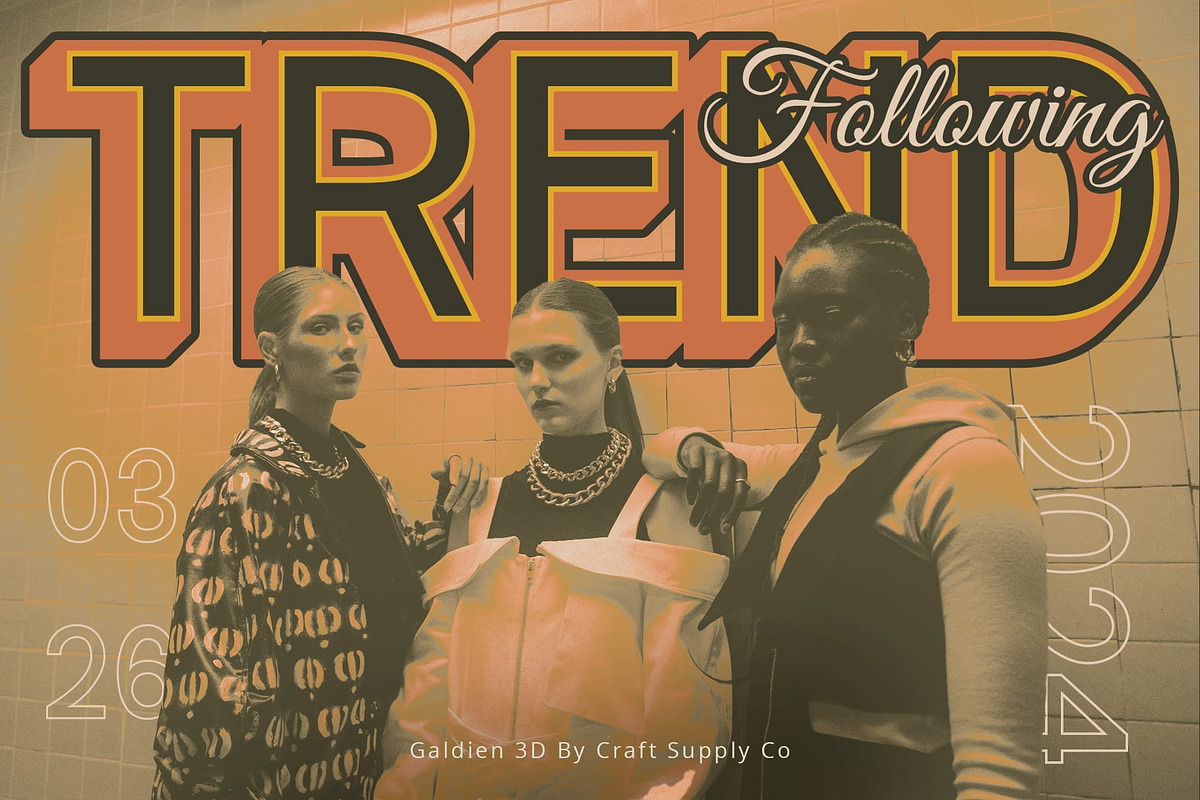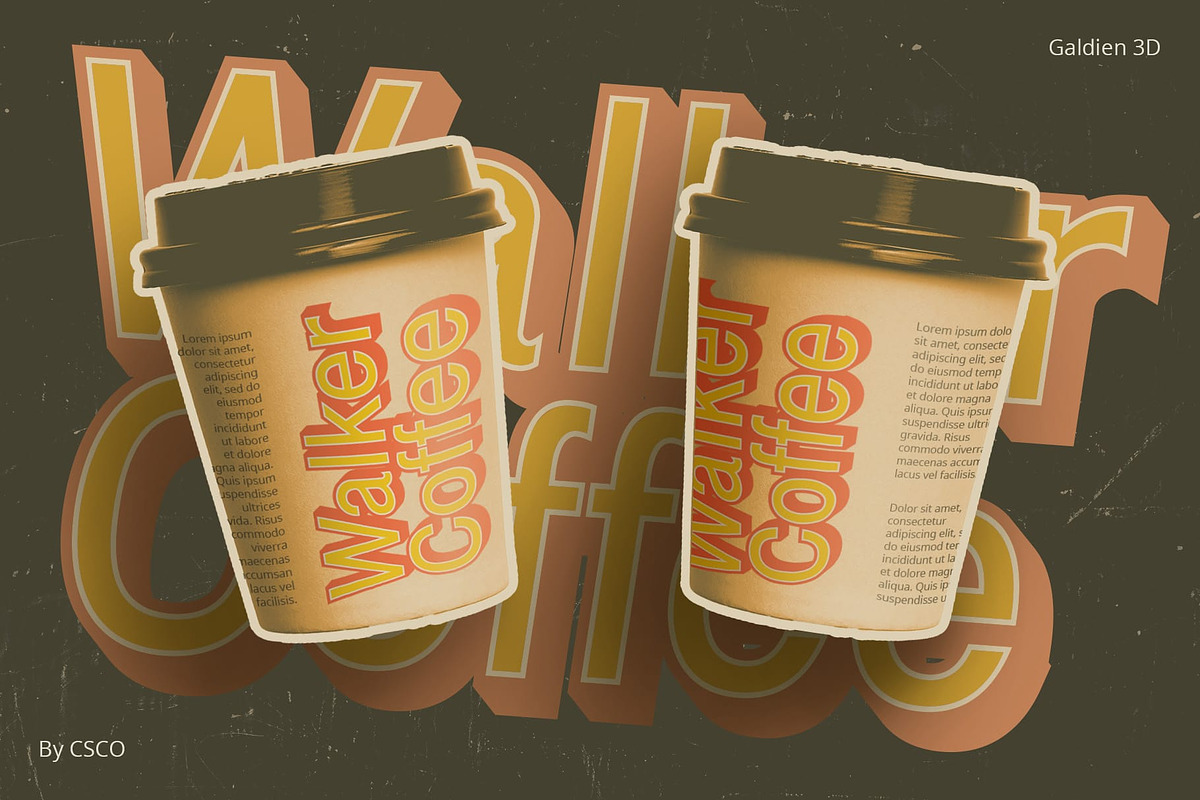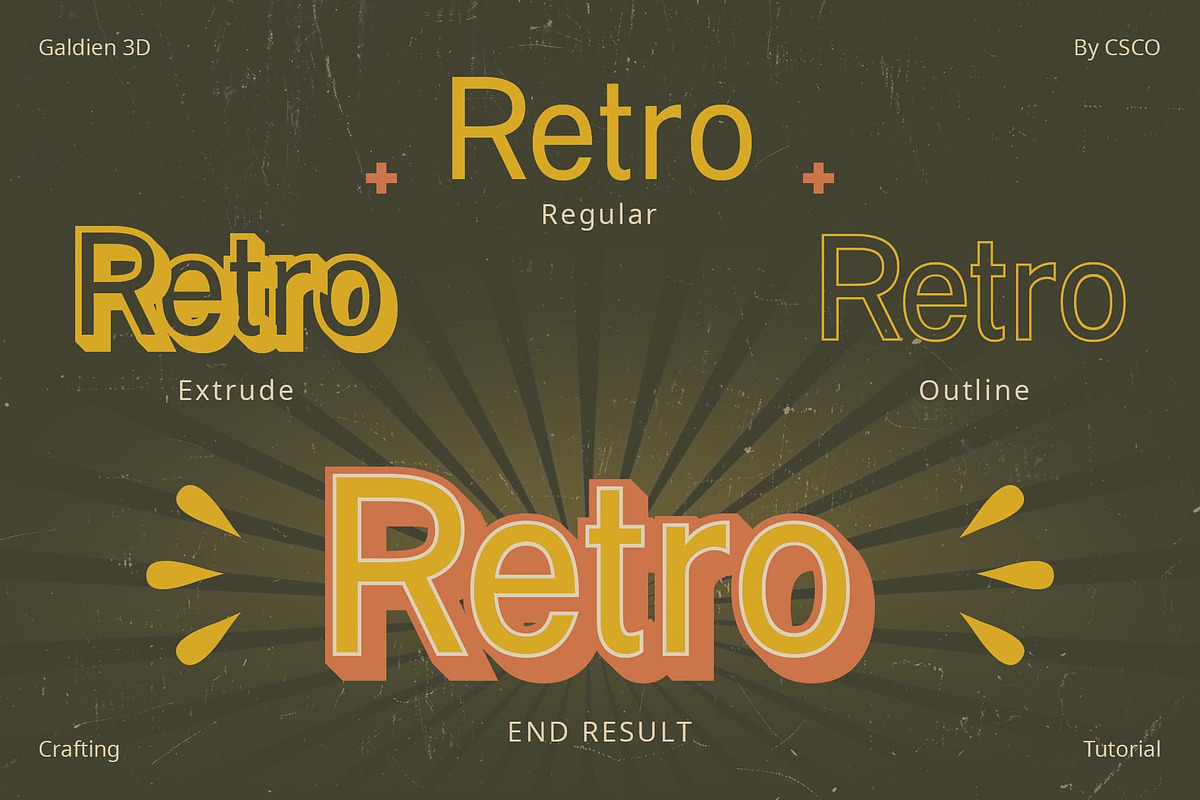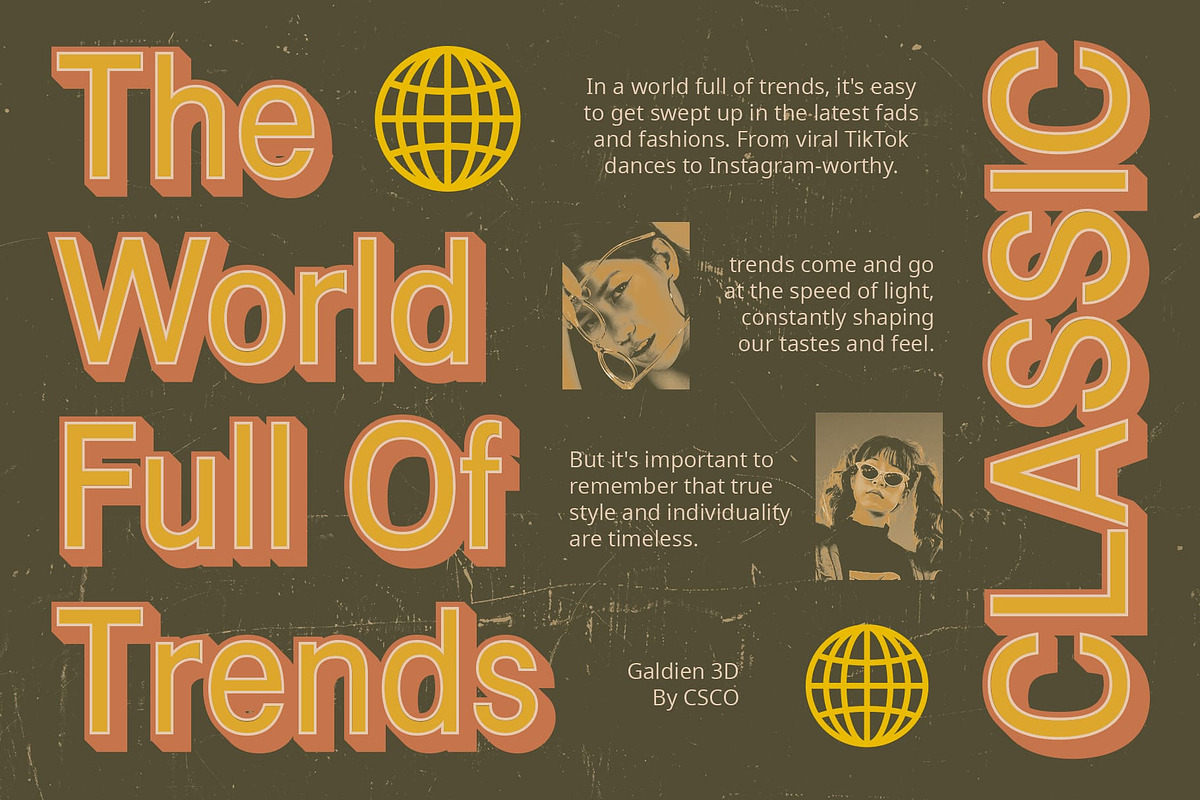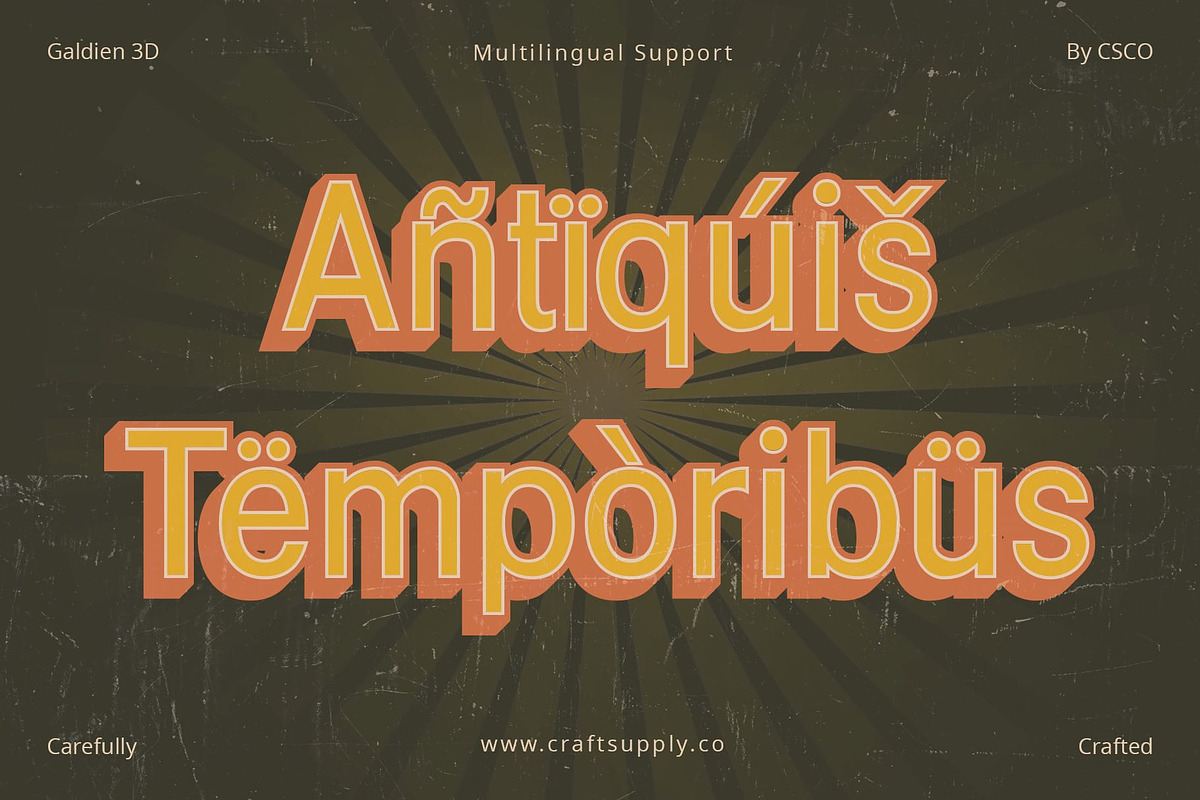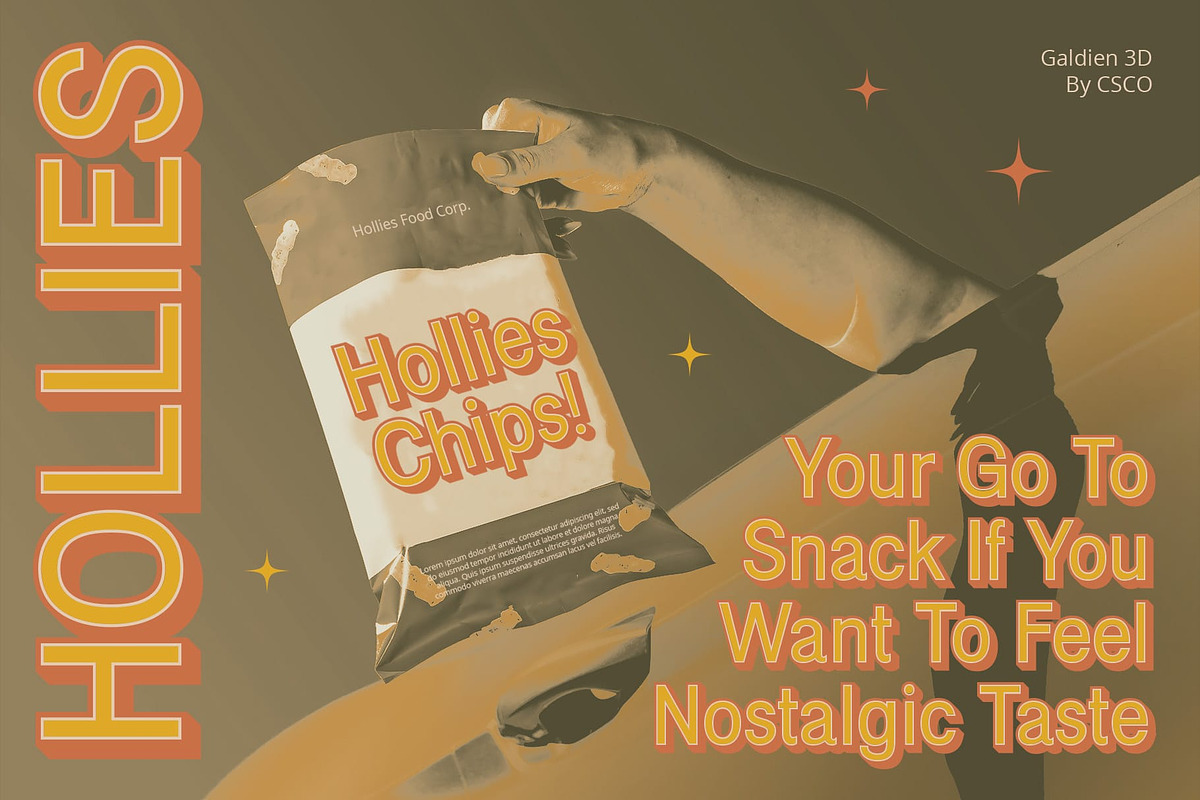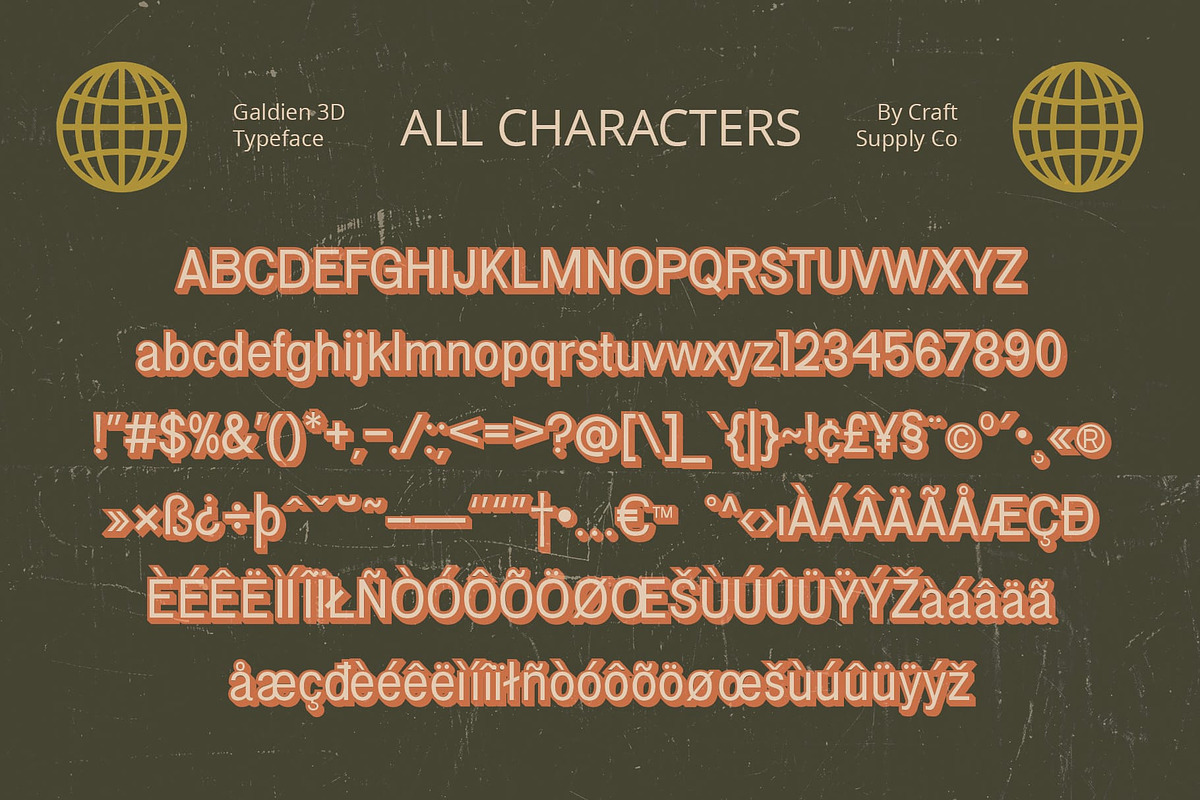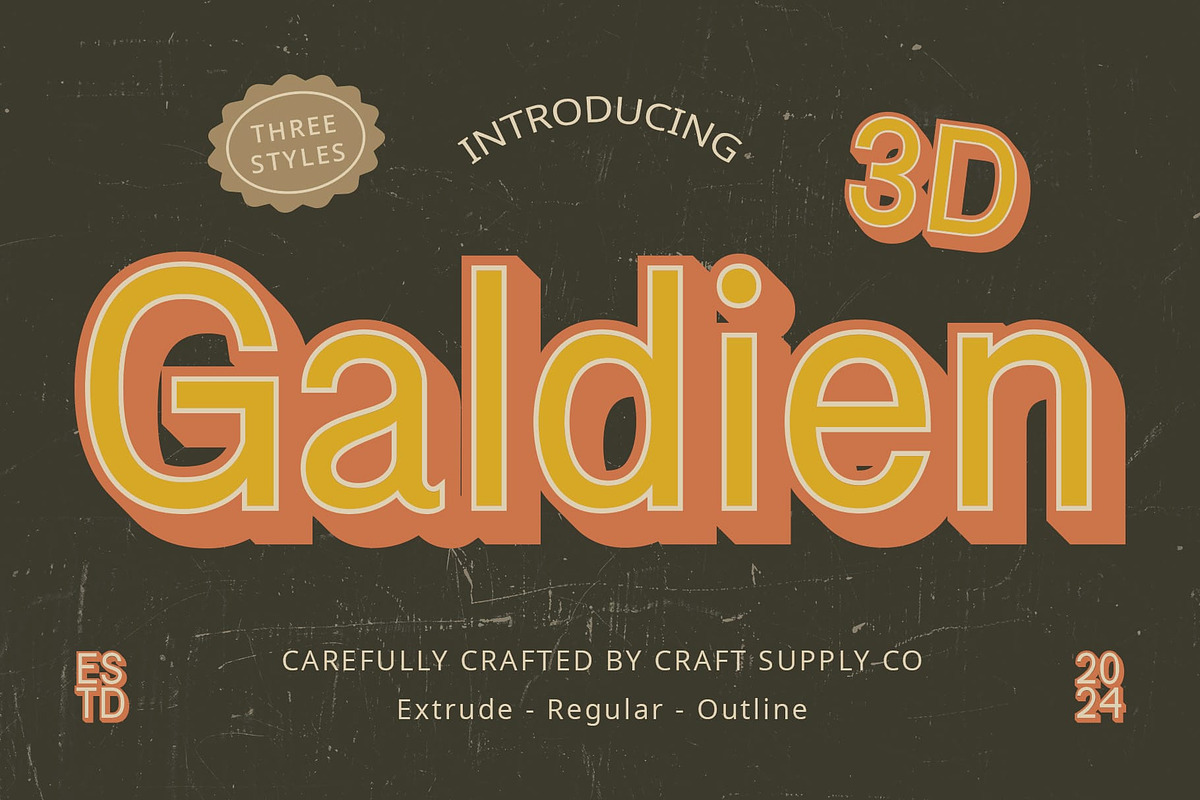
Galdien 3D
Galdien 3D: Elevating Formal Sans Serif Typography
Striking Formality Enhanced in 3D Galdien 3D exudes a sense of formal elegance with its sleek sans serif design, further elevated by captivating 3D effects. Each character commands attention, making it perfect for eye-catching displays.
A Blend of Formality and Depth This font seamlessly combines formal sans serif aesthetics with modern 3D technology. The result is a striking visual impact that captivates viewers and adds depth to any display project.
Tailored for Eye-Catching Displays Designed specifically for displays, This font stands out effortlessly. Its formal appearance, coupled with the dimensional allure of the 3D effects, ensures that your message is both professional and attention-grabbing.
Versatile Application Across Platforms Beyond its captivating appearance, This font offers versatility in application. Whether used in digital banners, print advertisements, or branding materials, its 3D formal sans serif style enhances the visual appeal across various platforms.
Formality Meets Depth This font is the epitome of formal sans serif typography, elevated to new heights with mesmerizing 3D effects. Its ability to command attention while maintaining a sense of formality makes it a versatile choice for eye-catching displays across a range of applications. Experience the blend of sophistication and depth with This font.
- Galdien Regular
- Galdien Outline
- Galdien Extrude Right
- Galdien Extrude Left